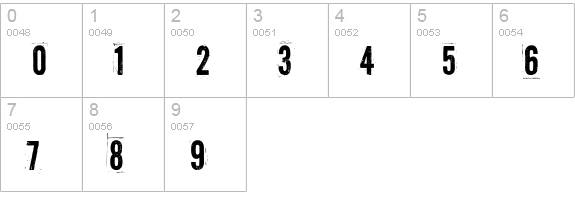
PFFuel Font Details
Introducing PFFuel font, a versatile and modern typeface that exudes sophistication and elegance. With its sleek lines and stylish curves, PFFuel is the perfect choice for a wide range of design projects, from branding to editorial design and everything in between. This font strikes the perfect balance between professionalism and creativity, making it suitable for both formal and casual applications. PFFuel font is a free typeface that is sure to elevate your design projects to the next level. Whether you are working on a logo, a website, or a print publication, PFFuel's clean and contemporary aesthetic will help you make a lasting impression. You can freely download PFFuel font at FontsMarket.com and start using it in your projects today. Don't miss out on this amazing opportunity to add a touch of sophistication to your designs with PFFuel font.